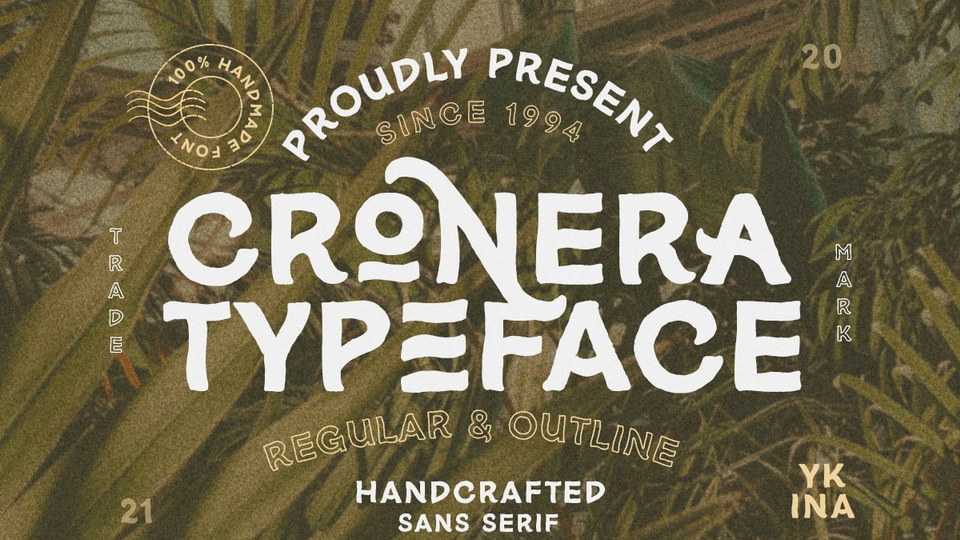
Download Cronera font, a bold, organic and thick lettered display typeface with a vintage feel. Cronera will be a wonderful asset to enhance any creation.